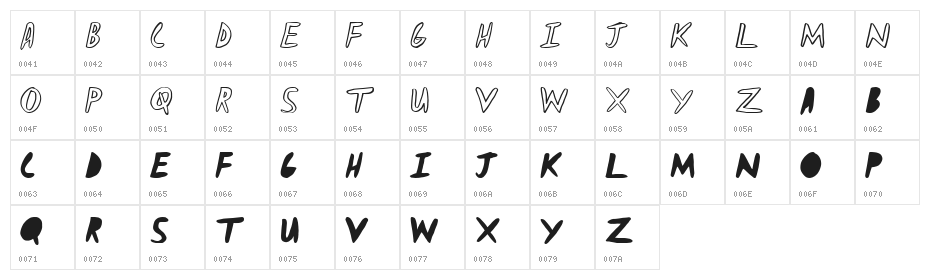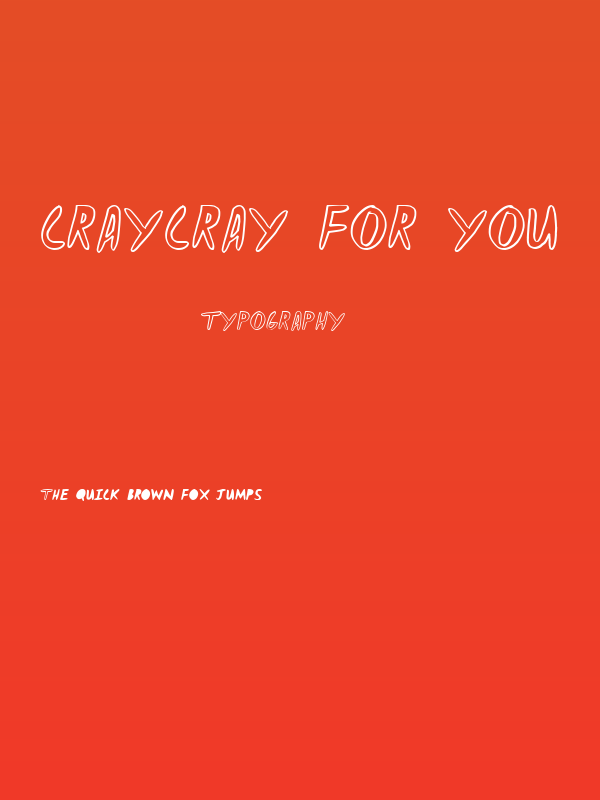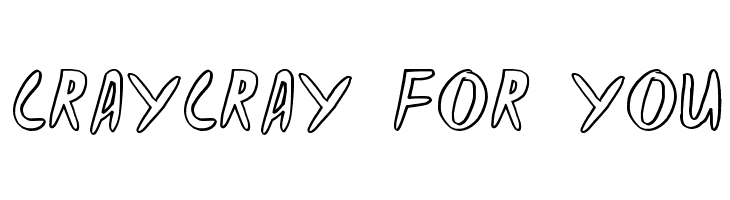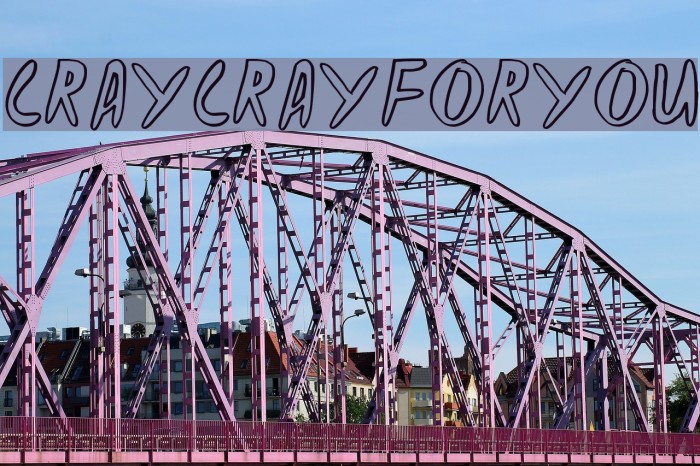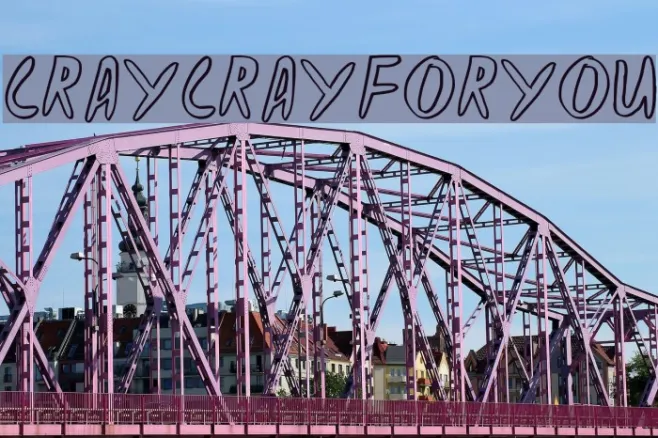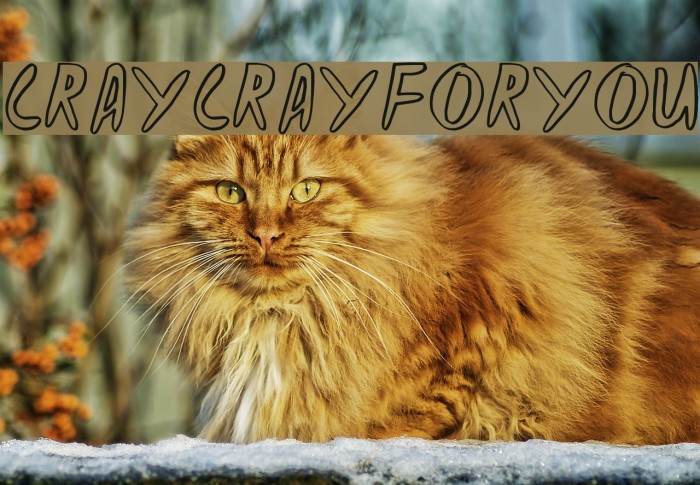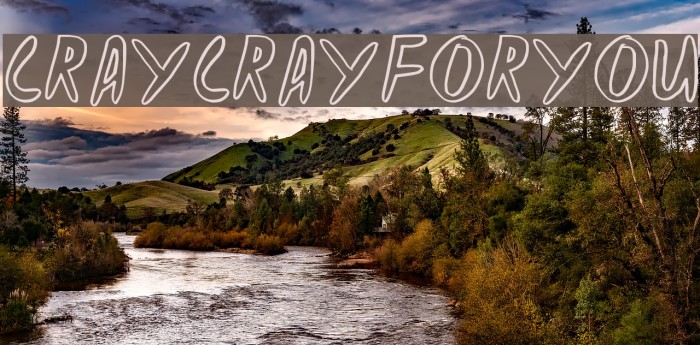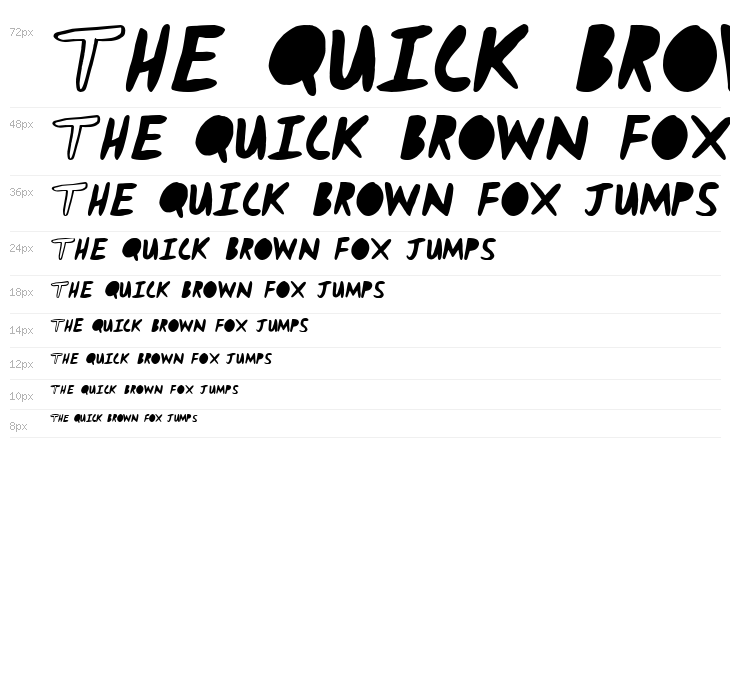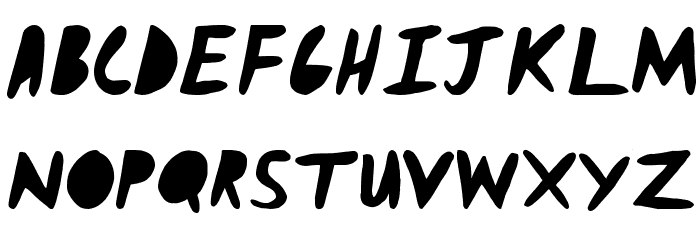
CRAYCRAY FOR YOU Font
CRAYCRAY FOR YOU Description
This playful and energetic font features a bold and dynamic style with a hand-drawn appearance. The uppercase letters are characterized by their irregular shapes and varying stroke widths, giving them a lively and informal feel. The font's unique personality is further enhanced by its slightly tilted and uneven letterforms, which add a sense of movement and spontaneity. The lowercase letters maintain the same whimsical quality, with a consistent flow that complements the uppercase set. This font is perfect for projects that require a fun and casual touch, such as children's books, playful branding, or creative posters.